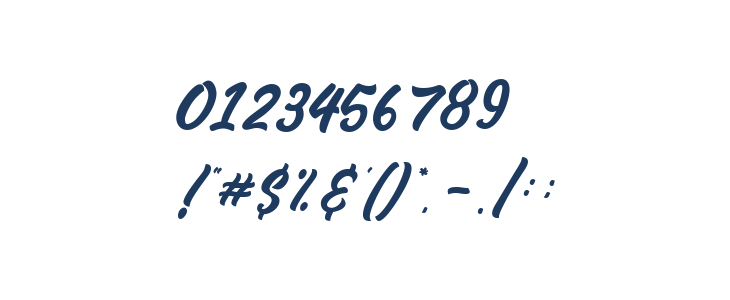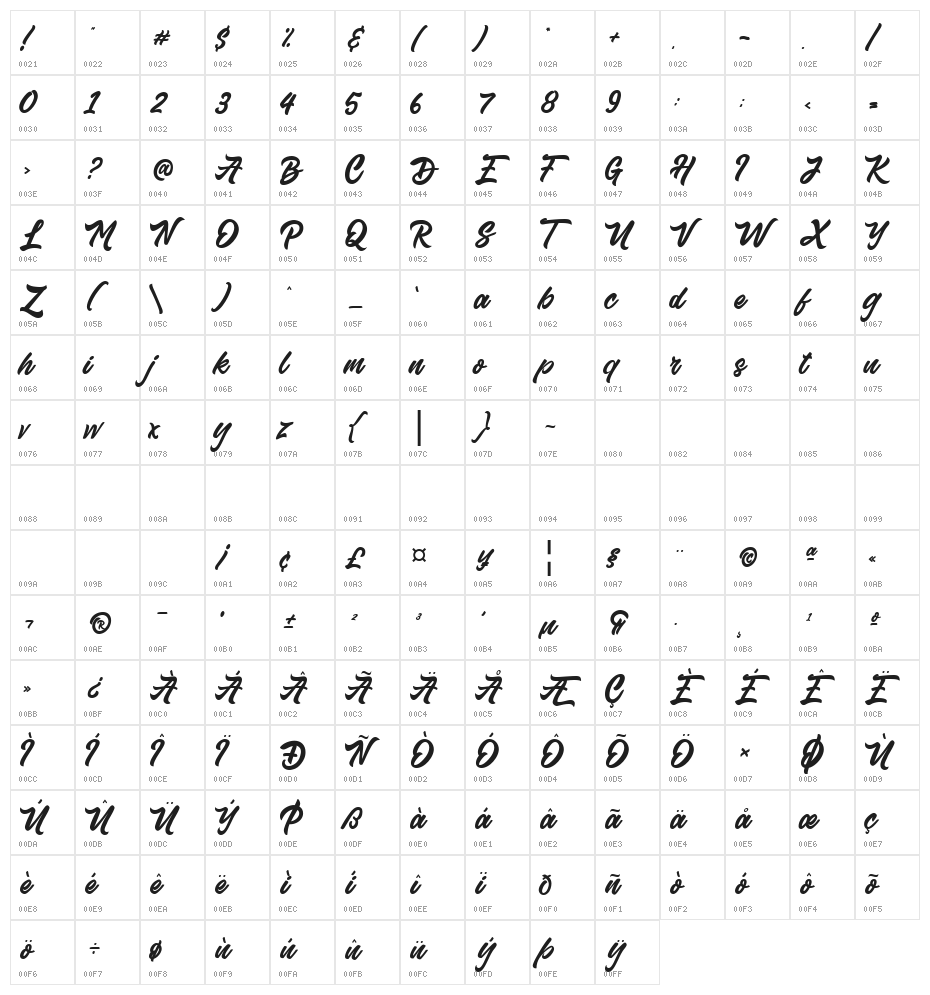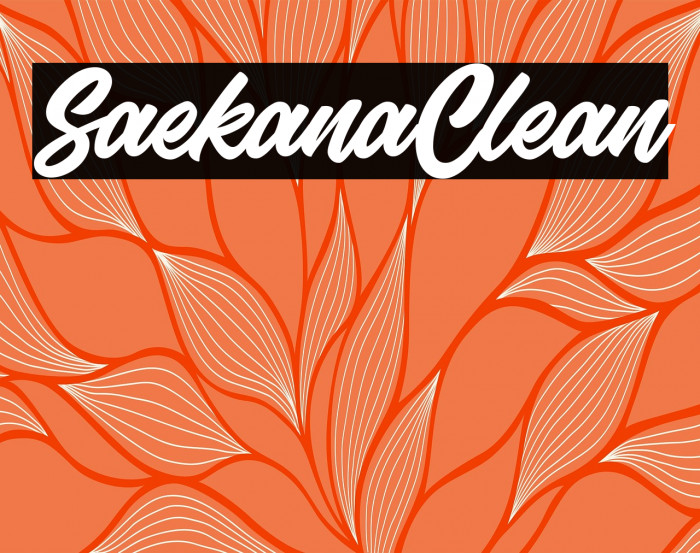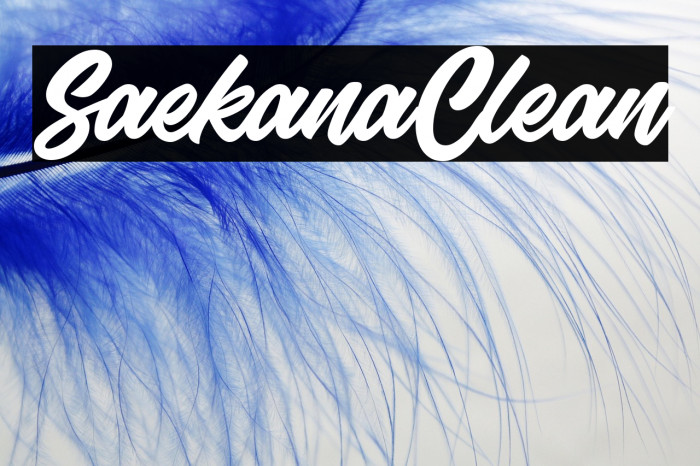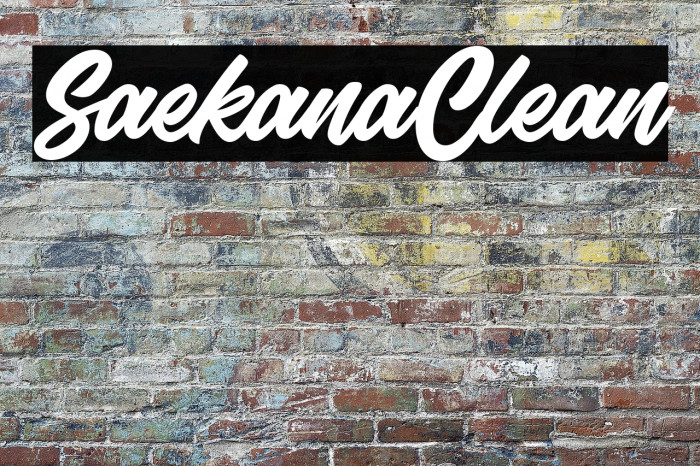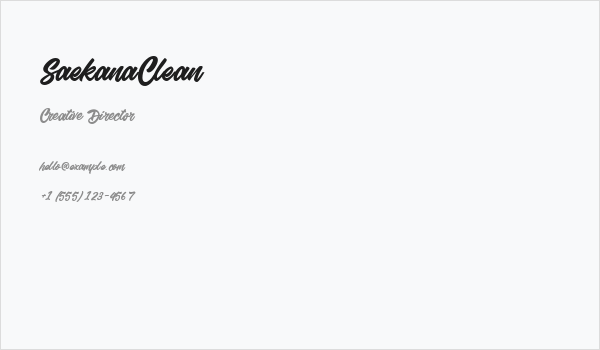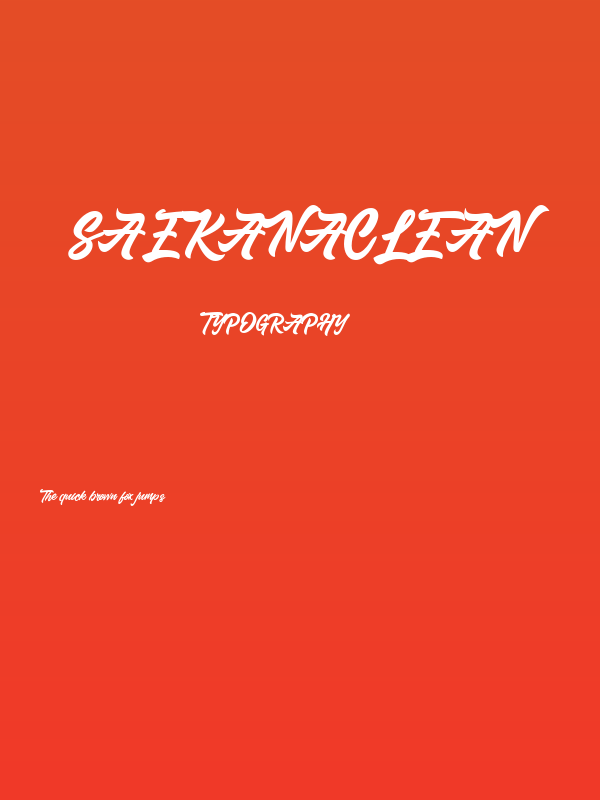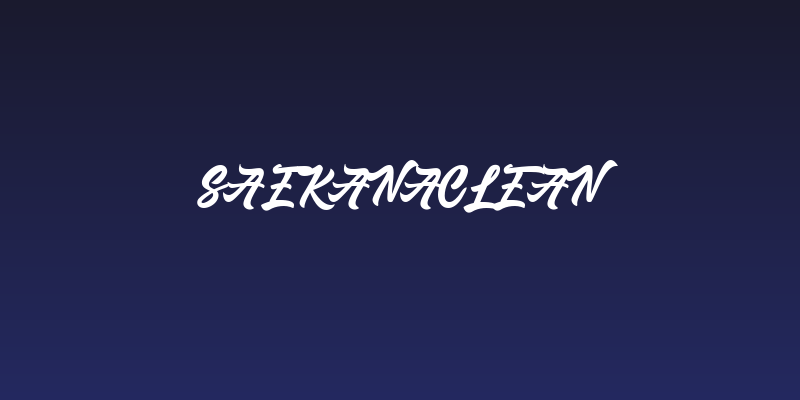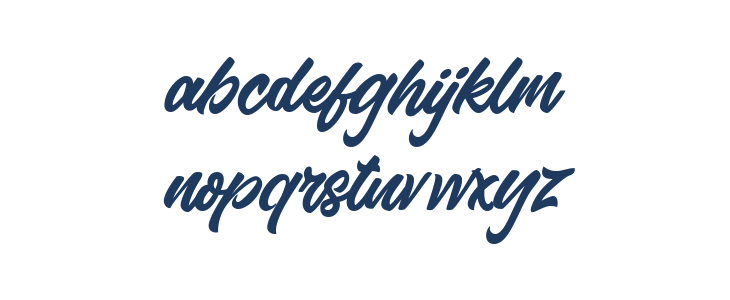
SaekanaClean Font
SaekanaClean Description
This font features a bold and flowing script style, characterized by its smooth, cursive letters that convey a sense of elegance and dynamism. The uppercase letters are particularly striking, with sweeping curves and a consistent slant that adds to the overall fluidity. The lowercase letters maintain this fluidity, with rounded forms and connected strokes that enhance readability. Numbers and special characters are designed to match the script's aesthetic, ensuring a cohesive look across all text elements. The font's bold weight and high contrast between thick and thin strokes make it ideal for attention-grabbing designs.
| Overall Style | Elegant, Dynamic |
| Proposed Projects | Ideal for wedding invitations, branding, logo design, and elegant packaging. |